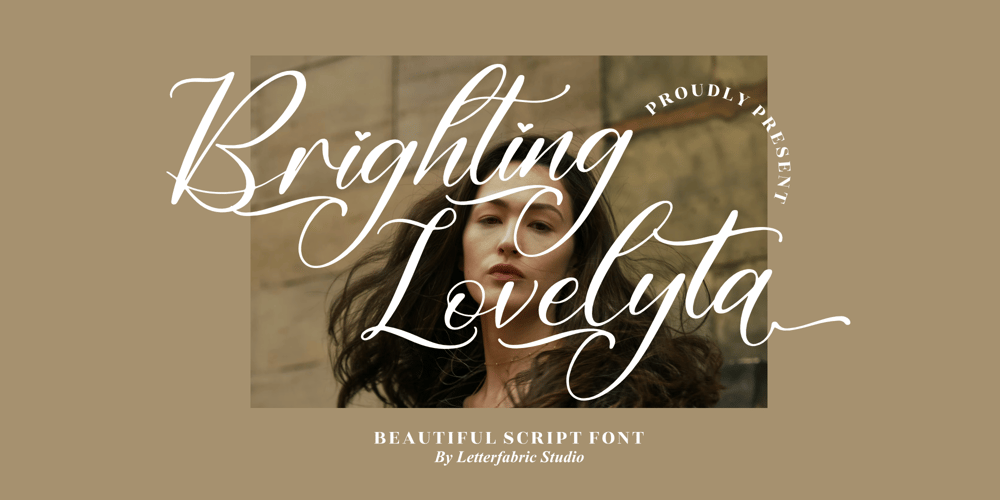
Brighting Lovelyta Font Family was designed by Heru Utama Putra and published by Letterena Studios. Brighting Lovelyta contains 2 styles and family package options. Brighting Lovelyta is a magical script font carefully created with a touch of elegance. Whether you’re looking for fonts for Instagram or calligraphy scripts for DIY projects, this font will turn any creative idea into a true piece of art!This font is PUA encoded which means you can access all of the glyphs and swashes with ease!